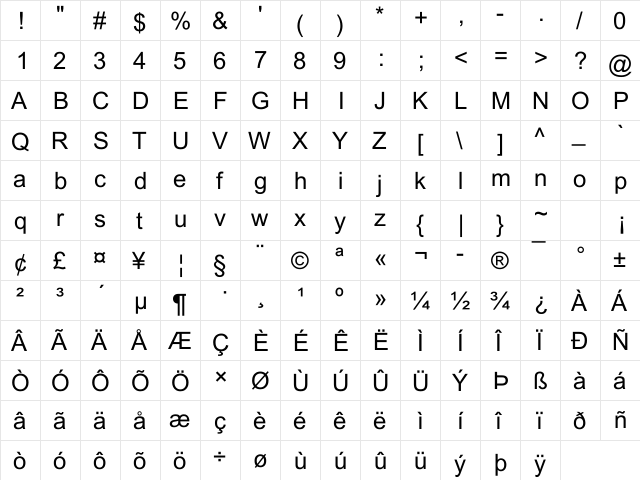
Pas de Deux Regular
Design Context for Pas de Deux Typeface
Pas de Deux offers clean, dependable letterforms without strong stylistic allegiance, making it a practical choice for designers who need flexibility.